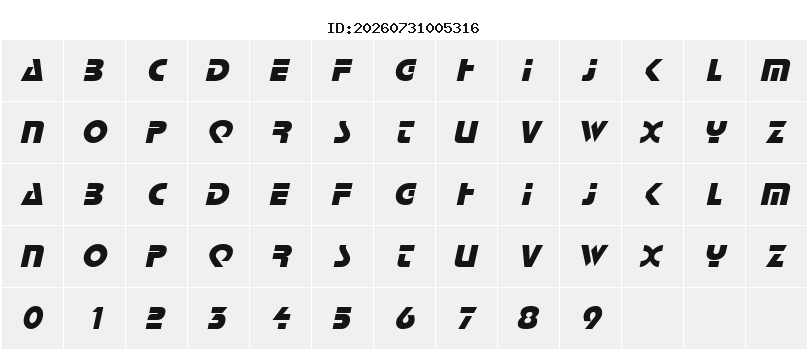
• Font Name: Logan
Logan.ttf is a modern, elegant sans-serif font designed for ultimate readability and visual harmony. Perfect for branding, headlines, web design, and print materials.